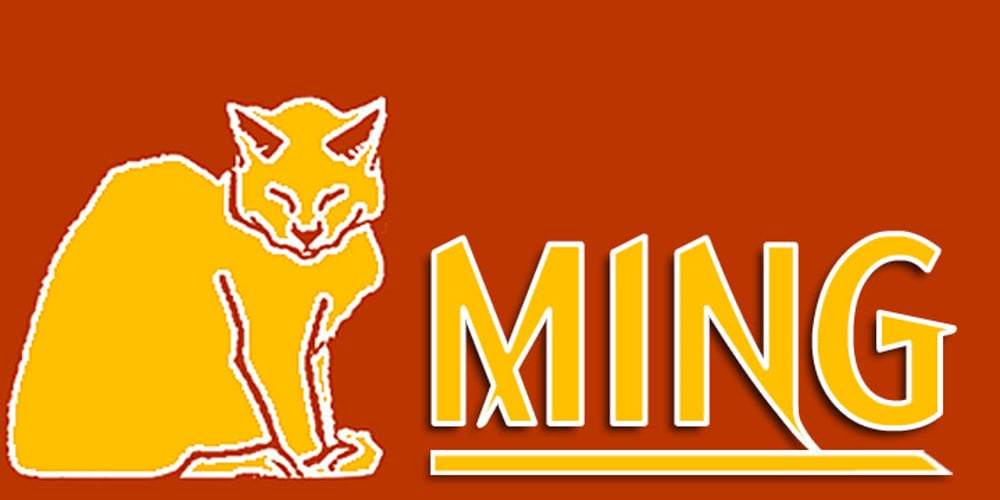
Ming
Ming font
Ming Font Family was designed by published by K-Type. Ming contains 2 styles and family package options. A sans serif with the futuristic retro, Art Deco feel of mid 20th century science fiction, particularly the early Flash Gordon serials.